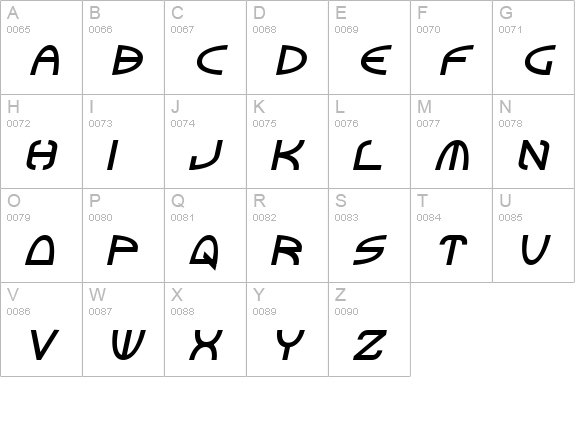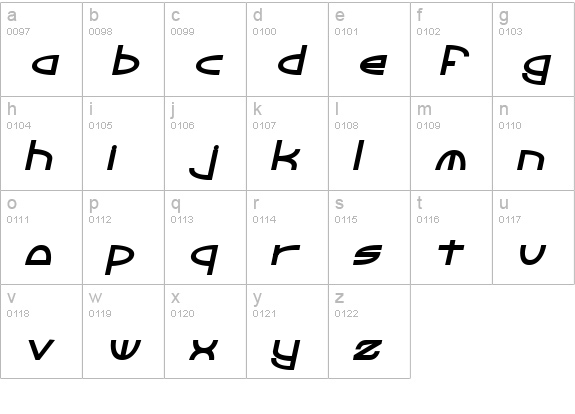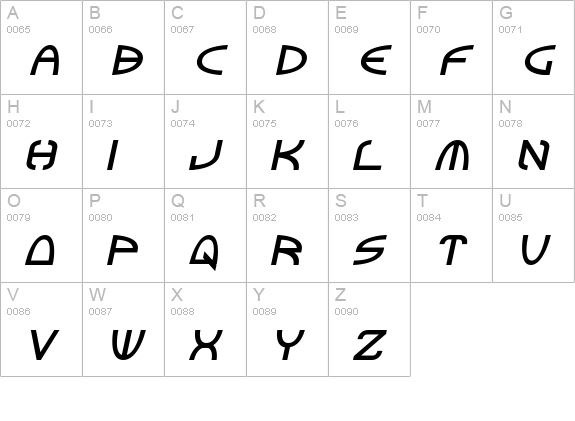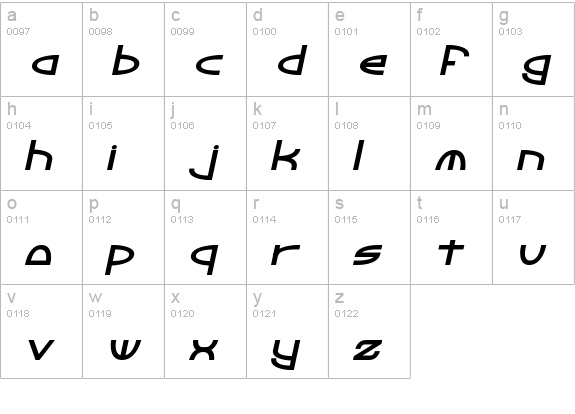
Tinker Round Bold Italic is a strong, high-contrast, italic variant in the Tinker typeface family \xE2\x80\x94 well suited to headlines, attention-grabbing titles, and strong calls-to-action.
Introducing Tinker Round Bold Italic, a captivating and versatile font that effortlessly combines playfulness with a touch of elegance. This unique typeface is perfect for those looking to add a dash of whimsy and creativity to their design projects. Its bold and italicized forms exude confidence and command attention, making it the ideal choice for eye-catching headlines, striking logos, and memorable branding materials. The Tinker Round Bold Italic font features smooth curves and rounded edges, giving it a friendly and approachable feel. Its harmonious balance between thick and thin strokes creates a visually pleasing rhythm, ensuring readability across various mediums. Whether used in printed materials or digital platforms, this font truly shines and leaves a lasting impression. What sets Tinker Round Bold Italic apart is its accessibility. It is available free of charge, allowing designers and creatives to fully explore its potential without any limitations. To download this remarkable font, simply visit FontsMarket.com, where you can easily access this font and many other stunning options. With Tinker Round Bold Italic, you can unleash your imagination and bring your design visions to life. Embrace the freedom to express your creativity with Tinker Round Bold Italic. Whether you're designing a website, crafting social media posts, or creating captivating advertisements, this font will effortlessly elevate your projects to new heights. Its distinct personality and versatility make it suitable for a wide range of design applications, making it an invaluable asset in any designer's toolkit. Don't miss out on the opportunity to experience the beauty and versatility of Tinker Round Bold Italic. Download it for free today at FontsMarket.com and unlock a world of endless design possibilities. Let your imagination run wild and watch as your creations come to life with this remarkable font. Tinker Round Bold Italic is more than just a font – it's a gateway to limitless creativity.